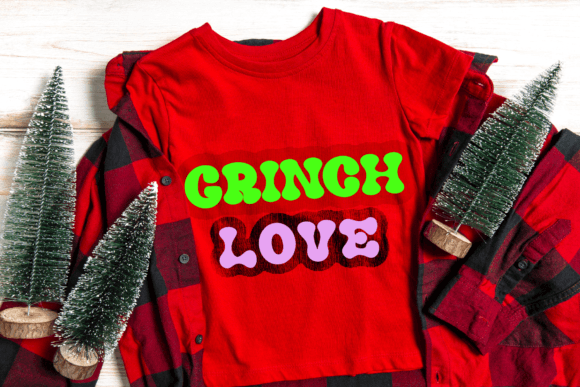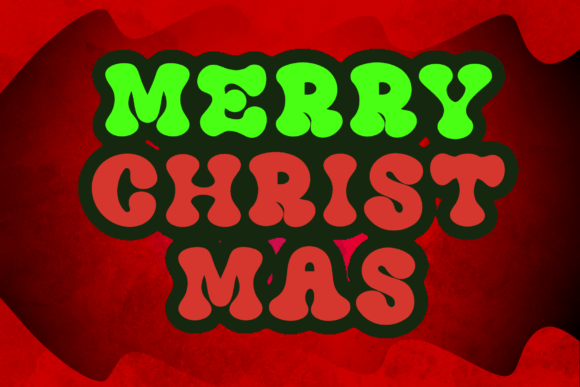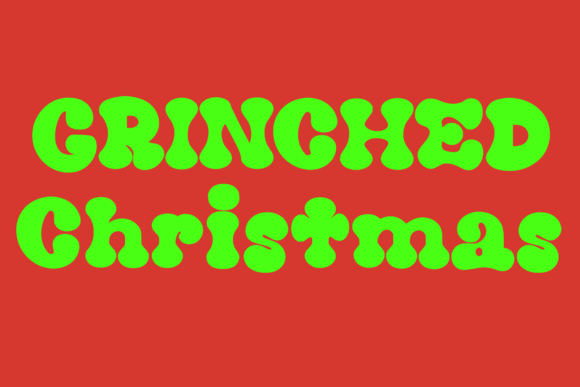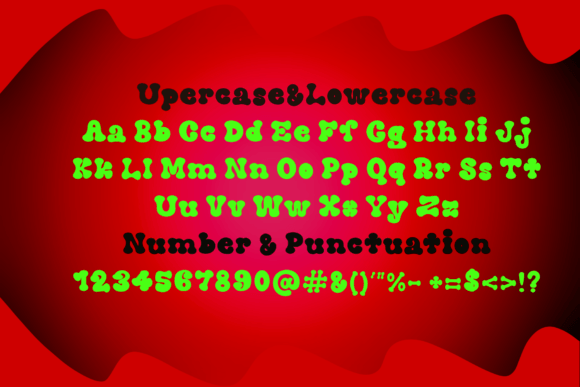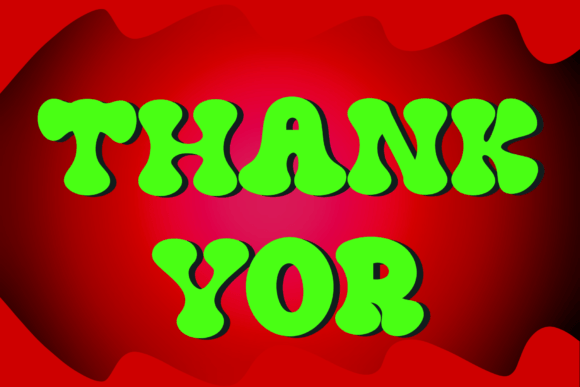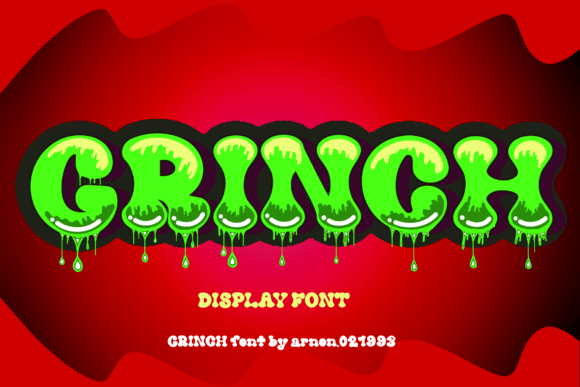
Introducing the Grinch Font: A Cute and Colorful Display Font for Kids’ Projects
Are you a designer, crafter, or educator looking for a fun and playful font to add to your projects? Look no further than the Grinch Font! This adorable display font is perfect for kids’ activities, school projects, and any design that needs a dash of whimsy and personality.
What is the Grinch Font?
The Grinch Font is a chunky lettered font that embodies playfulness and authenticity. Its cute and colorful design makes it an ideal choice for projects that require a fun and youthful vibe. Whether you’re creating a flyer for a kids’ party, a worksheet for a classroom activity, or a social media post for a children’s brand, this font is sure to make your design come alive!
Characteristics of the Grinch Font
So, what makes the Grinch Font so special? Here are a few of its key characteristics:
- Chunky lettering: The Grinch Font features thick, chunky letters that are perfect for creating bold and eye-catching designs.
- Cute and colorful: The font’s design is both cute and colorful, making it perfect for kids’ projects and designs that require a playful touch.
- Playful and authentic: The Grinch Font has a playful and authentic feel that’s sure to resonate with kids and adults alike.
Why Use the Grinch Font?
There are many reasons why you might want to use the Grinch Font in your designs. Here are a few:
- Perfect for kids’ projects: The Grinch Font is specifically designed with kids’ projects in mind. It’s perfect for creating fun and engaging designs that kids will love.
- Adds personality to your designs: The Grinch Font has a unique and playful personality that’s sure to add a touch of whimsy to your designs.
- Easy to read: Despite its chunky design, the Grinch Font is easy to read, making it perfect for use in titles, headings, and other design elements.
How to Use the Grinch Font
Using the Grinch Font is easy! Here are a few tips to get you started:
- Use it for titles and headings: The Grinch Font is perfect for use in titles and headings, where its bold and playful design can really make an impact.
- Pair it with other fonts: The Grinch Font pairs well with other fonts, so feel free to experiment with different combinations to create a unique look.
- Use it for kids’ activities: The Grinch Font is perfect for kids’ activities, such as worksheets, coloring pages, and other educational materials.
Design Ideas Using the Grinch Font
- Kids’ party flyers: Use the Grinch Font to create fun and eye-catching flyers for kids’ parties.
- Classroom worksheets: The Grinch Font is perfect for creating engaging and interactive worksheets for kids.
- Children’s book titles: Use the Grinch Font to create bold and eye-catching titles for children’s books.
| Font Name | Grinch Font |
| Author | arnon.021993 |
In conclusion, the Grinch Font is a cute and colorful display font that’s perfect for kids’ projects and designs that require a playful touch. Its chunky lettering, cute and colorful design, and playful and authentic feel make it an ideal choice for designers, crafters, and educators. So why not give it a try and see how it can bring your designs to life?